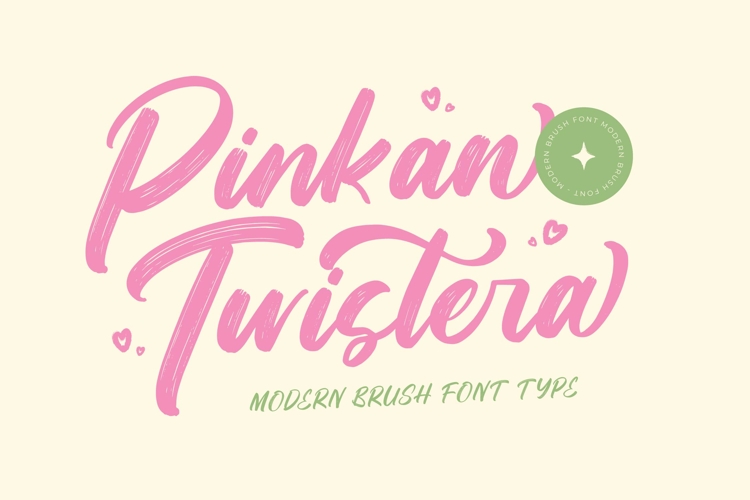
Pinkan Twistera - Modern Brush Font Type
Pinkan Twistera - Modern Brush Font Type , from Letterena, is a Luxury Script font, suitable for any projects such as: logos, branding projects, homeware designs, product packaging, mugs, quotes, posters, shopping bags, t-shirts, book covers, name card, invitation cards, greeting cards, label, photography, watermark, special events, and all your other luxury and beautiful projects that need a Luxury Script taste.
189 Ligature 25 Alternate & Swashes